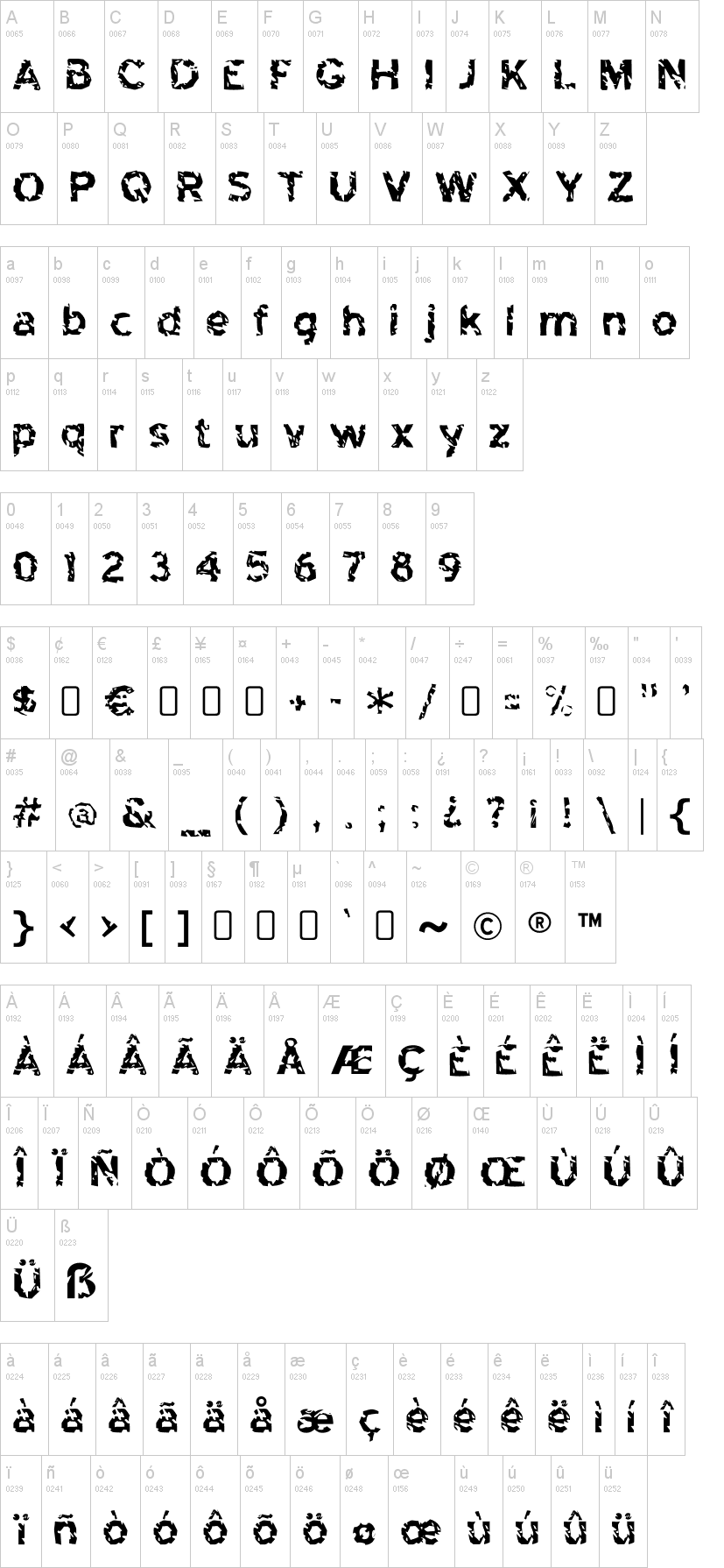
Шрифт Highway to Heck
Highway To Heck is a crumbling highway font, wasting away. Don't forget to read the files inside the zip for details. Updated in 2012. If you'd like a clean version of something similar, check out Blue Highway or Expressway.